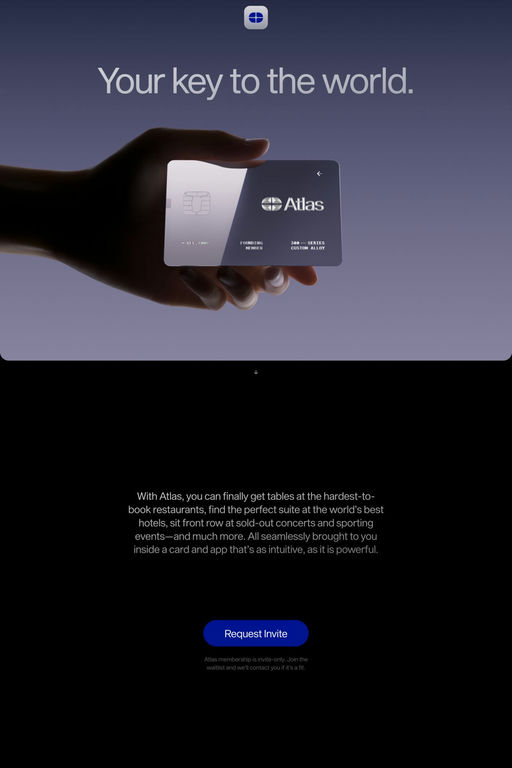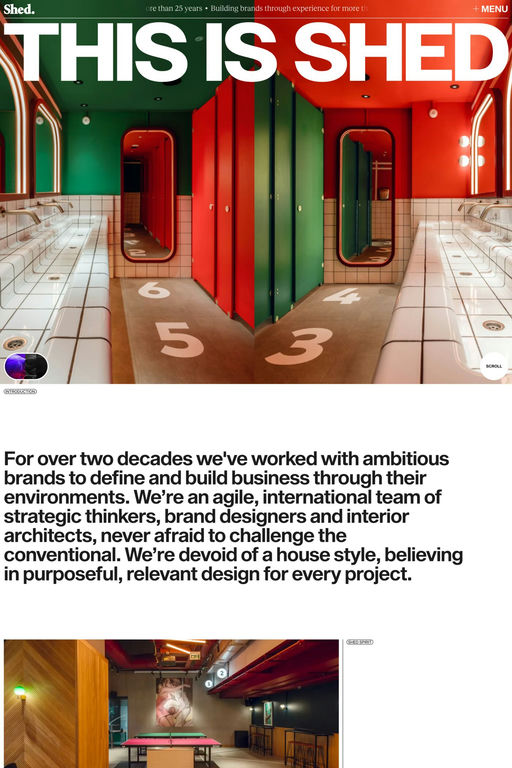
Sequel Sans is a sans-serif typeface from OGJ Type Design.
Sequel Sans, which is a neo-grotesque font, presents flexibility and versatility. It represents an excellent option for various design applications. As a contemporary member of the neo-grotesque family, Sequel Sans came into being as a result of cooperation.
A1 features 4 websites using Sequel Sans, including AlterG, Desses, and Shed. They lean towards Minimal, Photography, and Typographic design styles, and they’re most often built with Webflow, Framer, and Nuxt.